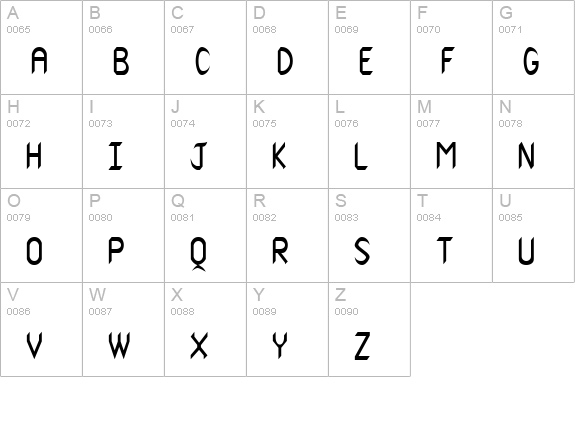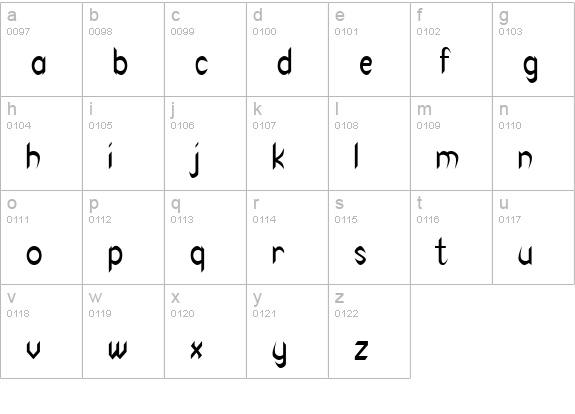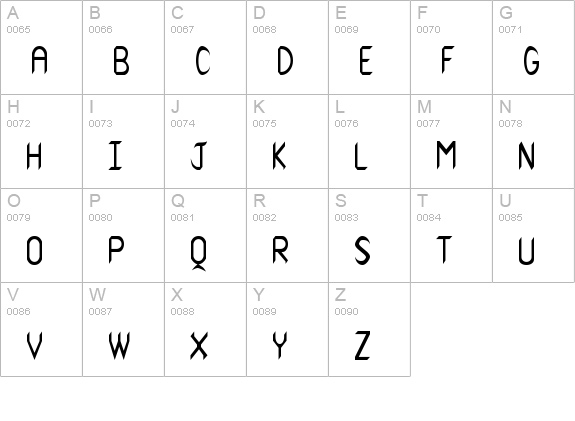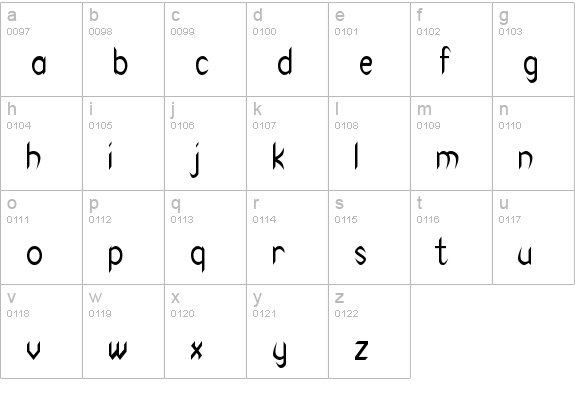
Spike-Condensed Normal is the standard, neutral, condensed-width variant in the Spike typeface family \xE2\x80\x94 well suited to general body text, paragraphs, and standard typographic work.
Spike-Condensed Normal font is a modern and sleek typeface that effortlessly captures attention with its stylish condensed design. Its clean lines and sharp angles make it perfect for a variety of design projects, from branding and advertising to web and print applications. This versatile font exudes a sense of professionalism and sophistication, making it an excellent choice for those looking to add a touch of elegance to their designs. Its condensed nature allows for maximum impact, making every word stand out on the page. One of the best things about Spike-Condensed Normal font is that it is freely available to download at FontsMarket.com. This means that you can access this stunning typeface without any cost, making it an ideal choice for designers on a budget. Whether you're a seasoned professional or a design enthusiast, Spike-Condensed Normal font is sure to impress. Its sleek and modern aesthetic, combined with its versatility and availability, makes it a must-have font for your collection. So why wait? Visit FontsMarket.com today and download Spike-Condensed Normal font for free to elevate your designs to a whole new level.